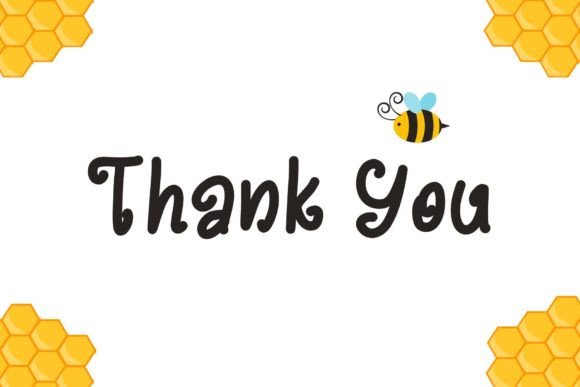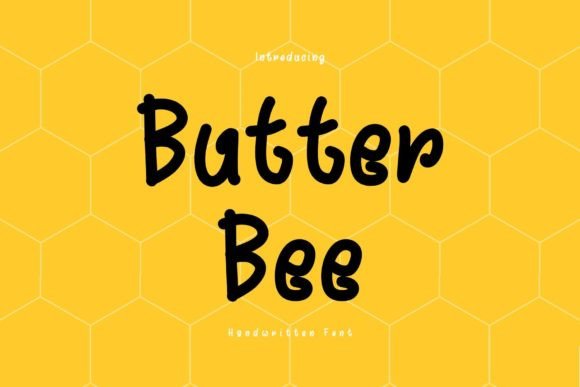
The Sweetest Font You’ll Ever Meet: Butter Bee Font
I’ll never forget the time I was working on a branding project for a new bakery, and I just couldn’t find the right font. The client wanted something playful, yet elegant, and I was determined to deliver. That’s when I stumbled upon the Butter Bee Font, and it was love at first sight! 💕
This cute handwritten font embodies playfulness and authenticity, making it the perfect choice for all your favorite projects, such as blog posts, logos, branding, ads, invitations, greeting cards, planners, photo albums, decorations, and much more. Add it to any of your designs, and enjoy the results!
• 💖 Playful and authentic feel
• 🎨 Versatile and easy to pair with other fonts
• 💫 Beautifully crafted with attention to detail
A Few Quirks to Keep in Mind 🤔
• ⚠️ Some characters may not work well in all contexts (e.g., all-caps headings)
• ⚠️ Limited language support (but great for English and similar languages)
The Story Behind Butter Bee Font
Butter Bee Font was crafted with love by a talented designer who wanted to create a font that would bring a smile to people’s faces. Inspired by the whimsy of nature and the beauty of handwriting, this font is the perfect blend of playfulness and sophistication.
Q: Does Butter Bee Font support non-English languages?
A: While Butter Bee Font has limited language support, it’s great for English and similar languages. Please check the font’s documentation for more information.